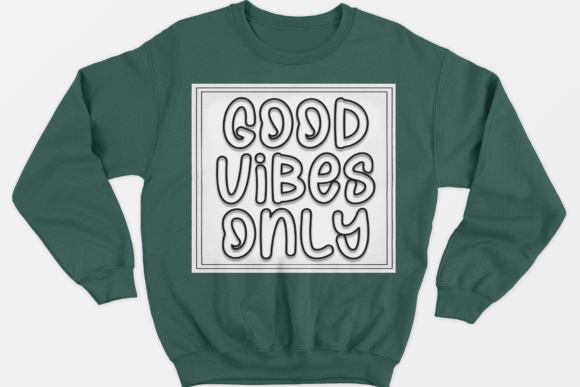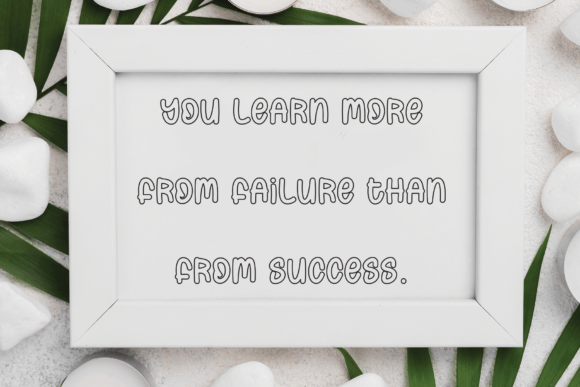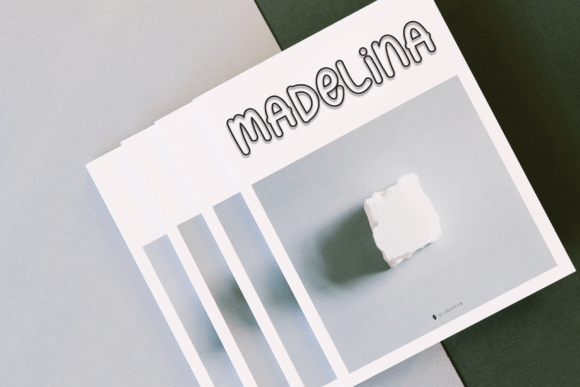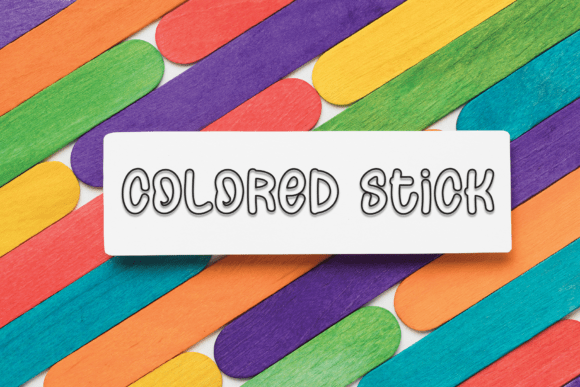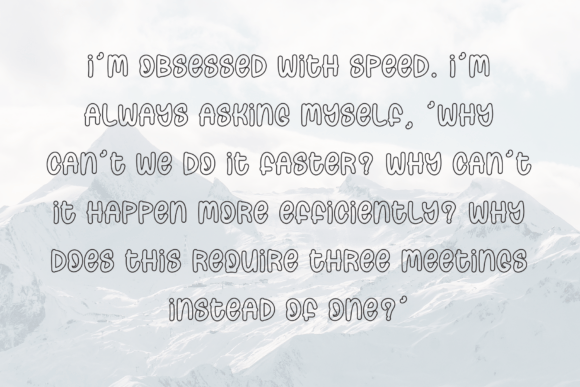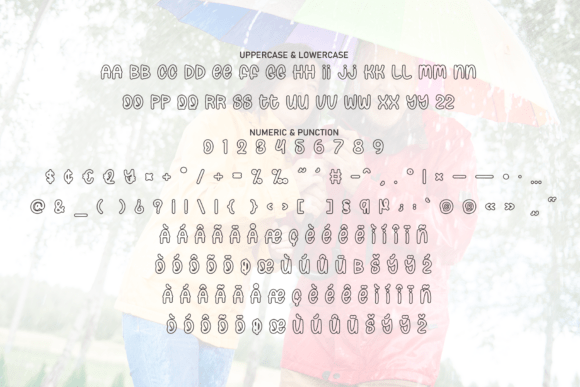
Introducing Delight Rainday Font: The Perfect Blend of Simplicity and Friendliness
Are you tired of using fonts that are too formal or too dull? Look no further than Delight Rainday Font, a casual and neat display font that combines simplicity with a friendly, approachable vibe. This beautiful font is perfect for designers and crafters who want to add a warm and inviting touch to their designs.
What Makes Delight Rainday Font Special?
Delight Rainday Font features clean lines, balanced letterforms, and subtle rounded edges that capture the essence of modern handwritten typography with a polished finish. Its crisp structure and versatile style make it ideal for a wide range of design applications, from branding and headlines to packaging and digital content.
One of the standout features of Delight Rainday Font is its unique blend of simplicity and friendliness. The font’s clean lines and balanced letterforms give it a modern and sophisticated look, while its subtle rounded edges add a touch of warmth and approachability. This makes it perfect for designers who want to create designs that are both modern and inviting.
Uses for Delight Rainday Font
Delight Rainday Font is a versatile font that can be used in a wide range of design applications. Here are some of the ways you can use this beautiful font:
- Branding: Use Delight Rainday Font to create a unique and memorable brand identity that reflects your company’s values and personality.
- Headlines: Add a touch of elegance and sophistication to your headlines with Delight Rainday Font’s clean lines and balanced letterforms.
- Packaging: Use Delight Rainday Font to create eye-catching packaging that stands out on store shelves.
- Digital Content: Add a warm and inviting touch to your digital content, from social media posts to blog articles, with Delight Rainday Font.
Benefits of Using Delight Rainday Font
There are many benefits to using Delight Rainday Font in your designs. Here are some of the advantages of using this beautiful font:
- Unique and Memorable: Delight Rainday Font is a unique and memorable font that will help your designs stand out from the crowd.
- Versatile: This font is versatile and can be used in a wide range of design applications.
- Easy to Read: Delight Rainday Font is easy to read, even at small sizes, making it perfect for digital content.
- Customizable: You can customize Delight Rainday Font to fit your design needs, from changing the color to adjusting the font size.
Tips for Using Delight Rainday Font
Here are some tips for using Delight Rainday Font in your designs:
- Pair it with Other Fonts: Delight Rainday Font pairs well with other fonts, so feel free to experiment with different font combinations.
- Use it for Headlines: Delight Rainday Font is perfect for headlines, so use it to add a touch of elegance and sophistication to your designs.
- Experiment with Colors: Delight Rainday Font looks great in a variety of colors, so don’t be afraid to experiment with different colors and gradients.
Delight Rainday Font is a beautiful and versatile font that is perfect for designers and crafters who want to add a warm and inviting touch to their designs. With its clean lines, balanced letterforms, and subtle rounded edges, this font captures the essence of modern handwritten typography with a polished finish. Whether you’re creating branding, headlines, packaging, or digital content, Delight Rainday Font is a great choice.